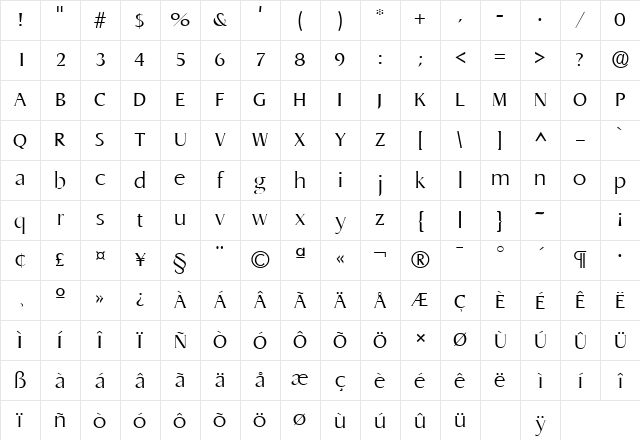
Llewelyn Light SF Regular
Design Context for Llewelyn Light SF
Llewelyn Light SF is a composed and adaptable typeface that performs quietly and consistently across a wide range of design contexts. Its slender proportions lend an understated elegance to any composition.